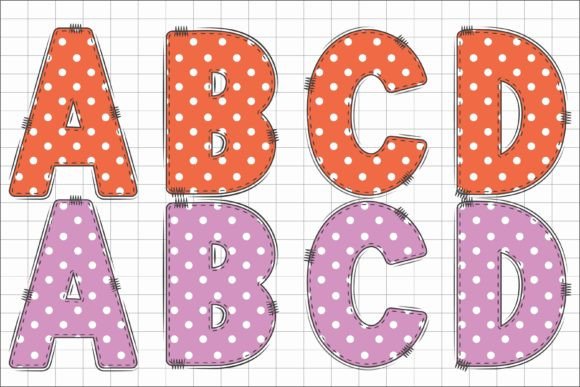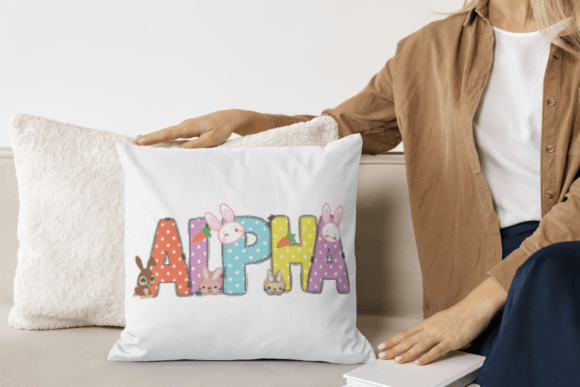
Cute Easter Egg Font
The Easter Egg font is a whimsical and playful typeface that embodies the spirit of celebration and joy associated with the Easter holiday. This unique font is characterized by its lively and creative design, featuring elements inspired by traditional Easter symbols such as eggs, bunnies, flowers, and pastel colors.
The letterforms of the Easter Egg font are adorned with intricate patterns and intricate details, resembling the decorative motifs found on Easter eggs. Each letter seems to be crafted with care and attention, adding a festive and cheerful touch to any text it graces. The font’s design captures the essence of the Easter season, making it a perfect choice for creating eye-catching and festive designs.
The color palette of the Easter Egg font is typically soft and pastel, reminiscent of the hues associated with springtime. These gentle colors contribute to the overall whimsy and charm of the font, making it well-suited for a variety of Easter-themed projects, such as greeting cards, party invitations, and festive banners.
Whether used in digital or print media, the Easter Egg font brings a sense of fun and celebration to any project. Its lively and creative design makes it an ideal choice for conveying the joyful and festive atmosphere of Easter, adding a touch of whimsy to text and design elements.